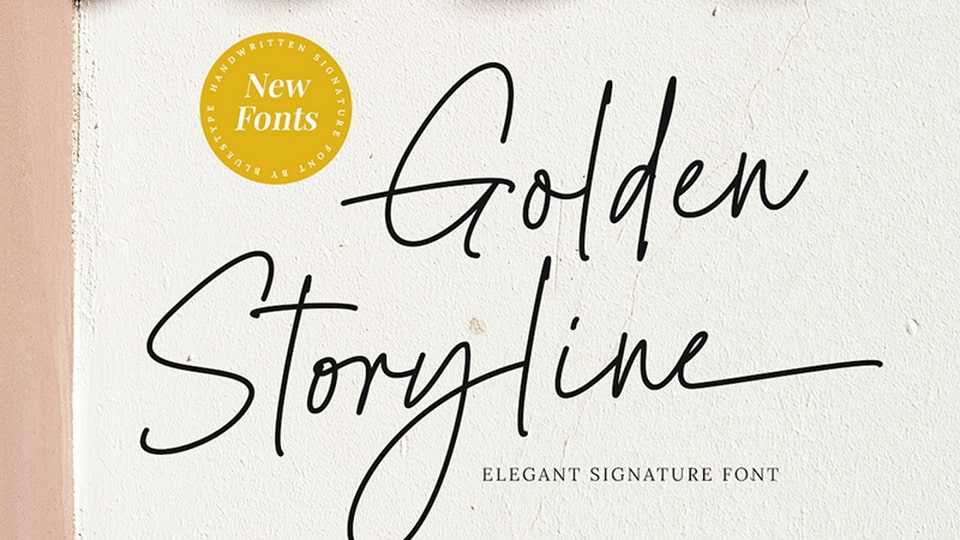
Download Golden Storyline font, an elegant and luxurious handwritten typeface with a signature feel. This font is made with detailed hand strokes with special line curves.